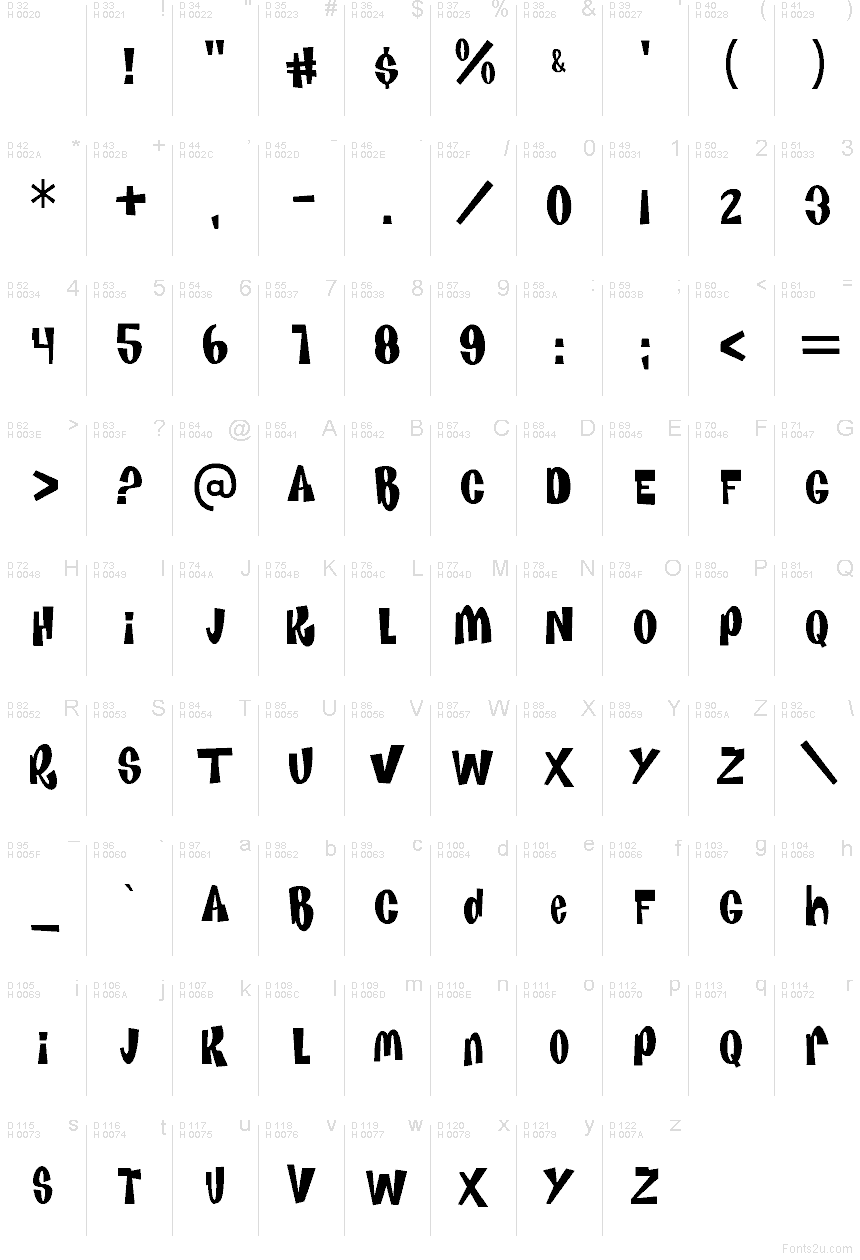
Treehouse font by Élise Benoît of Microtype Fonts is a free comic display typeface with the rough-and-tumble charm of a handmade sign on a clubhouse door. Its chunky, tall letters wobble and lean with a playful bounce, like they’ve been cut from construction paper and glued slightly off-center. The inky black shapes feel bold and friendly at the same time, instantly setting a fun, kid-forward tone without slipping into chaos.
Using Treehouse, this free font shines on children’s book covers, birthday invitations, classroom posters, camp flyers, toy packaging, and playful social graphics. The tight, irregular rhythm pulls the eye through a word in one smooth swoop, so short headlines and big titles really pop. For a simple pairing, combine Treehouse for headings with a clean rounded sans for body text, and keep Treehouse large to let its quirky curves and wobbly energy do the storytelling.